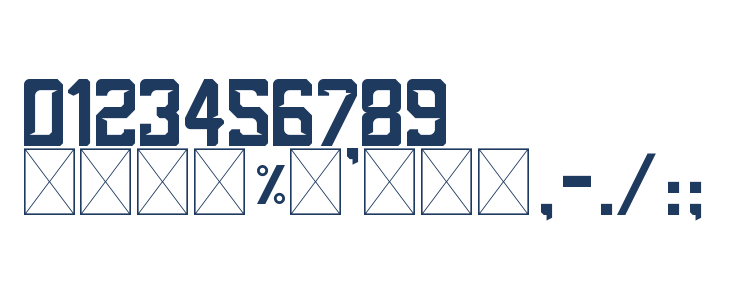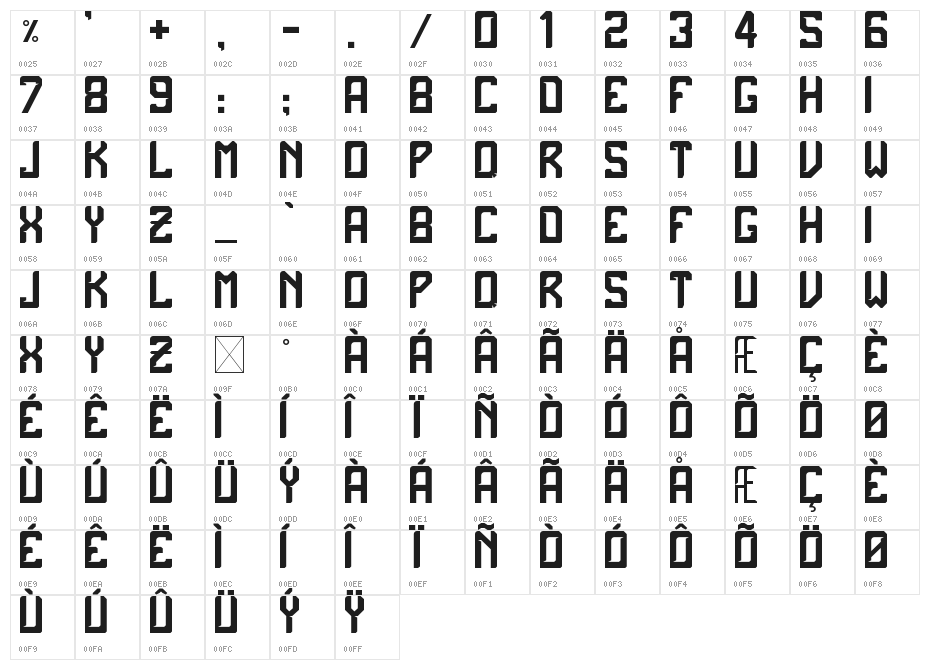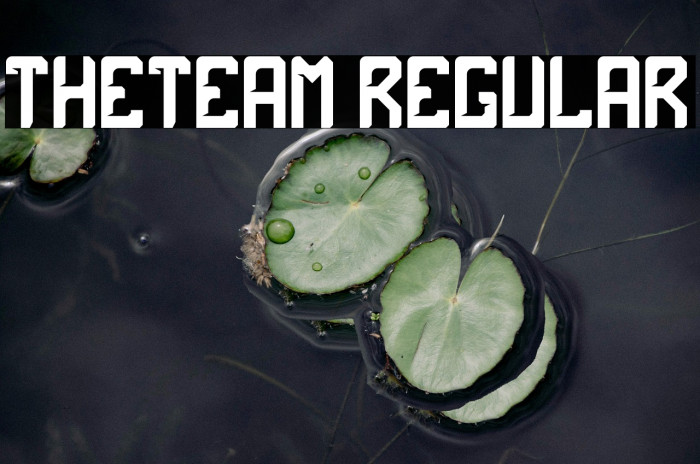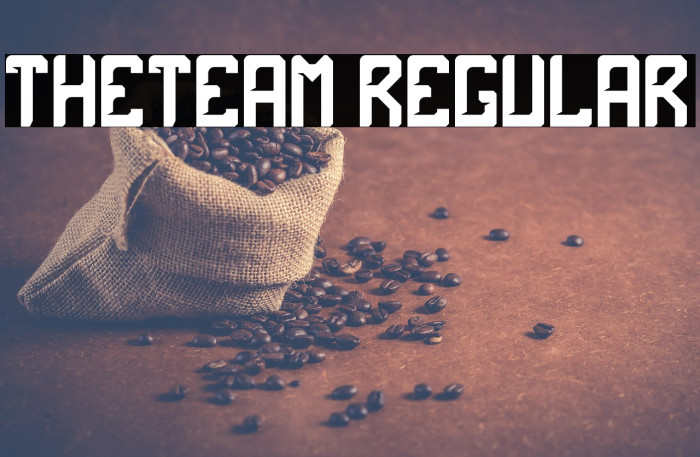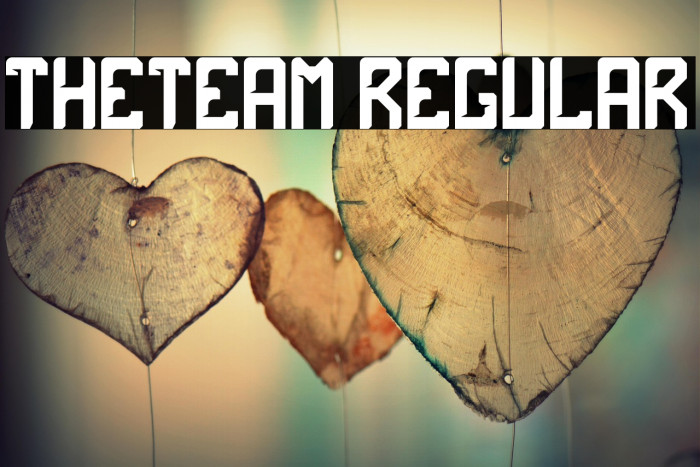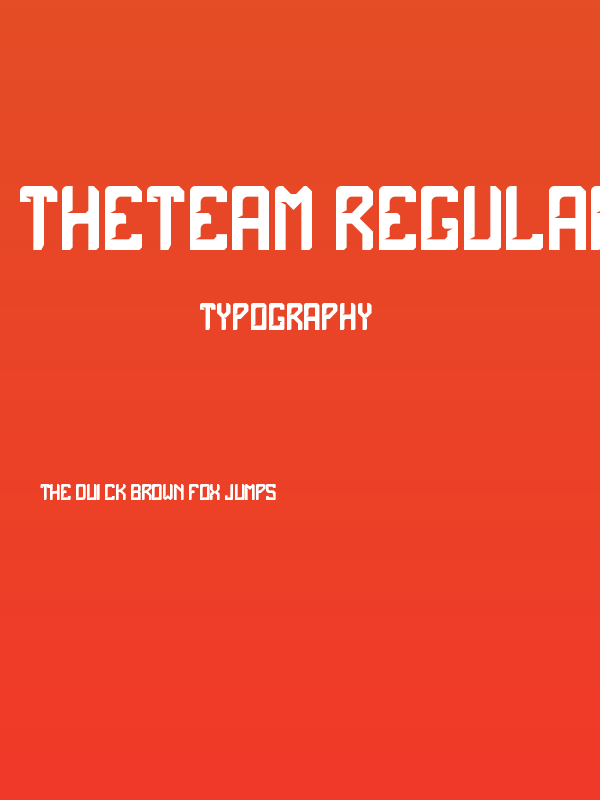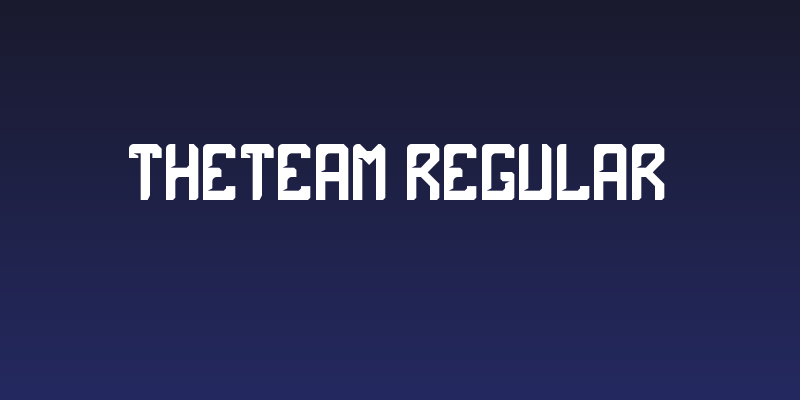
theTeam Regular Font
theTeam Regular Description
This font features a bold and geometric design with sharp angles and a strong presence. The characters are constructed with a blocky, almost stencil-like appearance, giving it a modern and industrial feel. The uppercase letters are uniform in height, while the numbers and special characters maintain the same bold style, ensuring consistency across all glyphs. The font's design is highly legible, making it suitable for impactful headlines and attention-grabbing text. Its unique style is characterized by the absence of curves, relying instead on straight lines and angular cuts, which contribute to its distinctive and edgy look.
| Proposed Projects | Ideal for branding, posters, sports team logos, and urban-themed designs. |